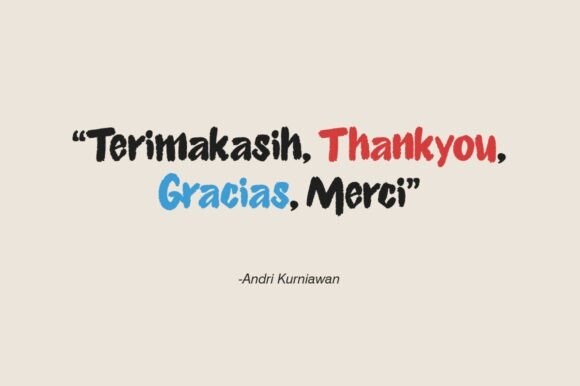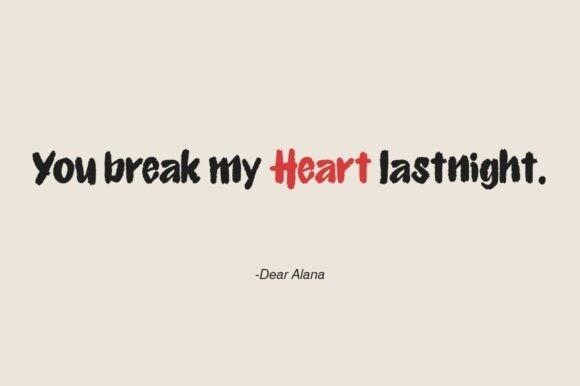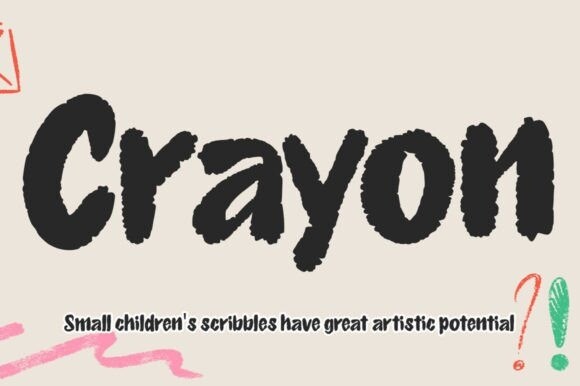
Crayon Font
Designer: Struggle Studio
Crayon Font, a whimsical yet versatile font that authentically mimics the playful, whimsical essence of children’s handwriting. Its unique, charming style seamlessly blends into a multitude of platforms— cafe websites, restaurant menus, art exhibition posters, and particularly, children’s storybooks. Unleash your creativity with Crayon as it brings a hint of innocent childlike nostalgia to whatever you craft. Let this delightful font stir the imaginative minds, irrespective of what you choose to envision – whether it’s in the magical pages of a children’s tale or on the chalk-filled blackboard of a vibrant cafe!